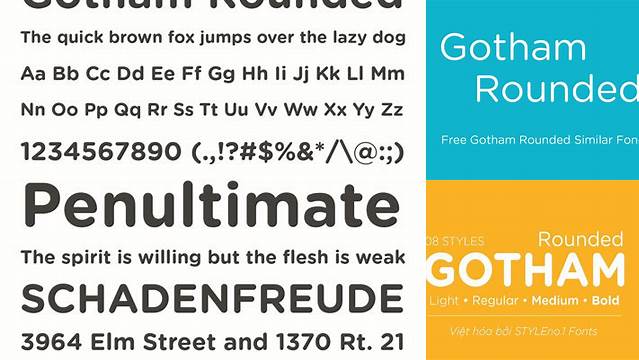
Welcome, design enthusiasts! Are you on the hunt for a versatile and stylish font that can elevate your projects? Look no further than Gotham Rounded, a softened version of the iconic Gotham typeface. In this comprehensive guide, we'll dive into the world of Gotham Rounded, exploring its features, uses, and, most importantly, how you can get a free font download to enrich your design arsenal. Get ready to discover why this font has become a favorite among designers worldwide, and how you can start using it today!
Why Choose Gotham Rounded?
First things first, what makes Gotham Rounded so special? Well, imagine the clean, geometric elegance of the original Gotham, but with a softer, more approachable vibe. This subtle difference makes Gotham Rounded incredibly versatile. It strikes a balance between modern and friendly, making it ideal for a wide range of applications. From website headers and body text to print materials like brochures and posters, this font adapts seamlessly. Its rounded terminals provide a touch of warmth that the original Gotham sometimes lacks. That makes Gotham Rounded perfect for conveying a sense of approachability and trustworthiness.
One of the primary reasons designers love Gotham Rounded is its readability. Even at smaller sizes, the letterforms are clear and distinct. This is crucial for both print and digital designs, as it ensures your message is easily understood by your audience. Plus, the font family typically includes a wide range of weights and styles, from light and thin to bold and black. That gives you ample flexibility to create visual hierarchy and emphasize key information. Whether you're designing a sleek corporate identity or a playful marketing campaign, Gotham Rounded offers the adaptability you need. This font's popularity also stems from its historical context. The original Gotham typeface, designed by Tobias Frere-Jones, gained widespread recognition. It was used extensively in the Obama presidential campaign. The rounded version carries the same legacy of design excellence. It brings a contemporary twist that resonates with modern aesthetics. Using Gotham Rounded in your projects not only enhances their visual appeal, but also connects them with a rich design history. It subtly communicates a sense of quality and sophistication.
Gotham Rounded in Action: Design Inspiration
So, how can you use Gotham Rounded to create stunning designs? The possibilities are endless! Here are some inspiring examples to get your creative juices flowing:
- Web Design: Use Gotham Rounded for headlines, subheadings, and body text on your website. Its clean lines and readability make it an excellent choice for creating a user-friendly online experience. Play around with different weights to establish a visual hierarchy. This will help guide your audience through your content.
- Branding: Incorporate Gotham Rounded into your brand identity. This includes your logo, business cards, and marketing materials. Its friendly yet modern look will help communicate your brand's personality. It's the perfect way to create a memorable brand image. Experiment with different color combinations to make your brand stand out.
- Print Design: Gotham Rounded shines in print applications. It includes brochures, posters, and packaging. Its clarity and versatility make it a reliable choice for conveying information effectively. The rounded terminals provide a touch of softness that can make your designs more approachable. Choose the appropriate paper stock to complement the font's aesthetic.
Conclusion: Embrace the Versatility of Gotham Rounded
In conclusion, Gotham Rounded is an exceptional font choice. Its versatility, readability, and modern aesthetic make it a valuable asset. The design landscape needs this font for both experienced designers and beginners. By understanding its features, knowing where to find a free font download, and following our design tips, you can create stunning and effective designs. So, what are you waiting for? Start exploring the world of Gotham Rounded today and elevate your design projects to the next level! Embrace the rounded elegance and unlock your design potential! Happy designing!